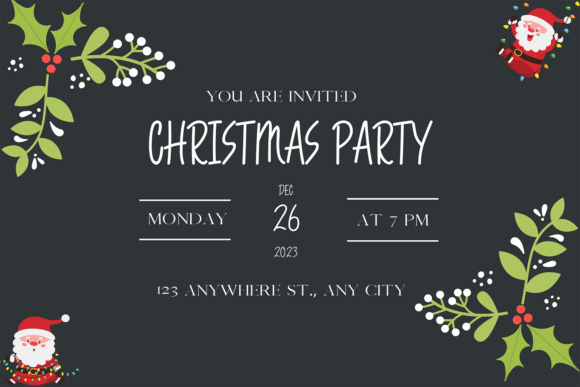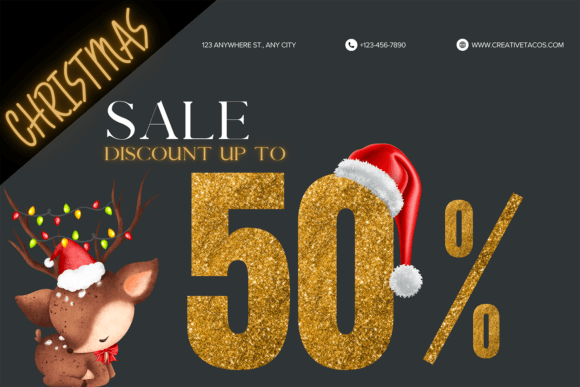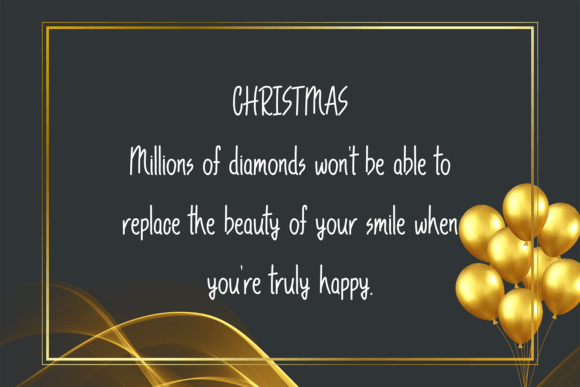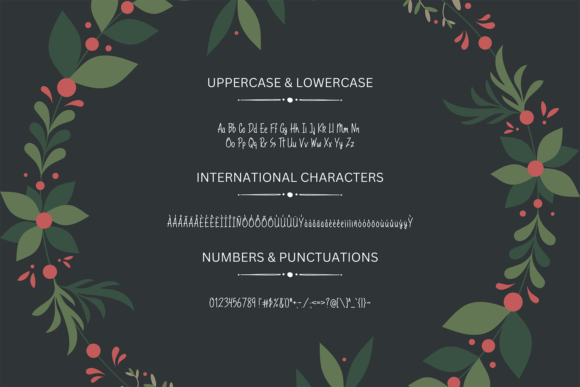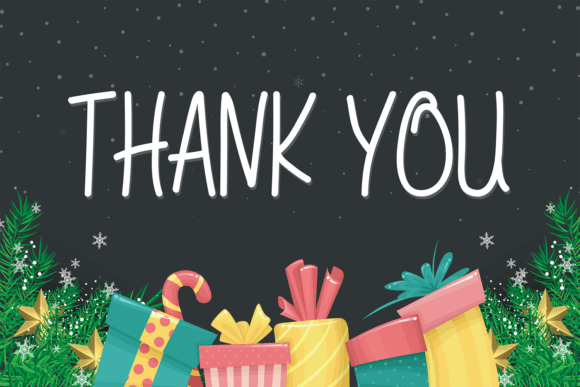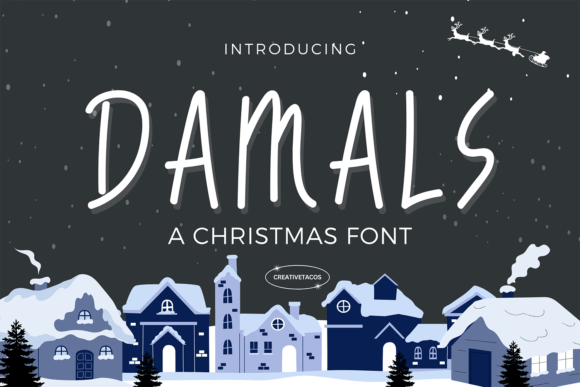
Damal Font: The Perfect Christmas Companion for Designers and Crafters
As the festive season approaches, designers and crafters are on the lookout for the perfect font to capture the essence of Christmas. Look no further than Damals Font, a beautiful, versatile, and flowy handmade font that embodies the spirit of the holiday season. With its elegant design and playful details, Damals Font is the ideal choice for all your Christmas design needs.
What Makes Damals Font So Special?
Damals Font is a unique and charming font that is specifically designed to evoke the magic of Christmas. Its elegant and cursive design makes it perfect for a variety of design projects, from holiday greeting cards and invitations to festive posters and social media graphics. The font’s flowy and handwritten style gives it a personal and warm feel, making it perfect for designers and crafters who want to add a touch of personality to their work.
Key Features of Damals Font
• Handmade with love: Damals Font is a handmade font, crafted with love and care to ensure that it has a unique and personal touch.
• Elegant and versatile design: The font’s elegant and cursive design makes it perfect for a wide range of design projects, from formal to informal.
• Playful details: Damals Font features playful details that add a touch of whimsy and fun to your designs.
• Perfect for Christmas designs: The font’s festive and holiday-themed design makes it perfect for all your Christmas design needs.
How to Use Damals Font in Your Designs
Damals Font is easy to use and can be incorporated into a variety of design projects. Here are a few ideas to get you started:
• Holiday greeting cards: Use Damals Font to create beautiful and festive holiday greeting cards that are sure to impress your friends and family.
• Festive posters: Create eye-catching festive posters using Damals Font and add a touch of elegance to your holiday decor.
• Social media graphics: Use Damals Font to create festive social media graphics that are sure to get your followers in the holiday spirit.
• Invitations and party decorations: Use Damals Font to create festive invitations and party decorations that will make your holiday party stand out.
Tips for Getting the Most Out of Damals Font
Here are a few tips for getting the most out of Damals Font:
• Experiment with different colors: Try pairing Damals Font with different colors to create a unique and festive look.
• Use it with other fonts: Experiment with pairing Damals Font with other fonts to create a unique and interesting design.
• Add festive graphics: Add festive graphics and illustrations to your designs to make them more engaging and fun.
Font Name Damals Font
Author creativetacos
Damals Font is a beautiful and versatile font that is perfect for all your Christmas design needs. With its elegant design and playful details, it’s sure to add a touch of magic to your holiday designs. Whether you’re a designer or crafter, Damals Font is a must-have font for the festive season. So why wait? Download Damals Font today and start creating your own festive designs!